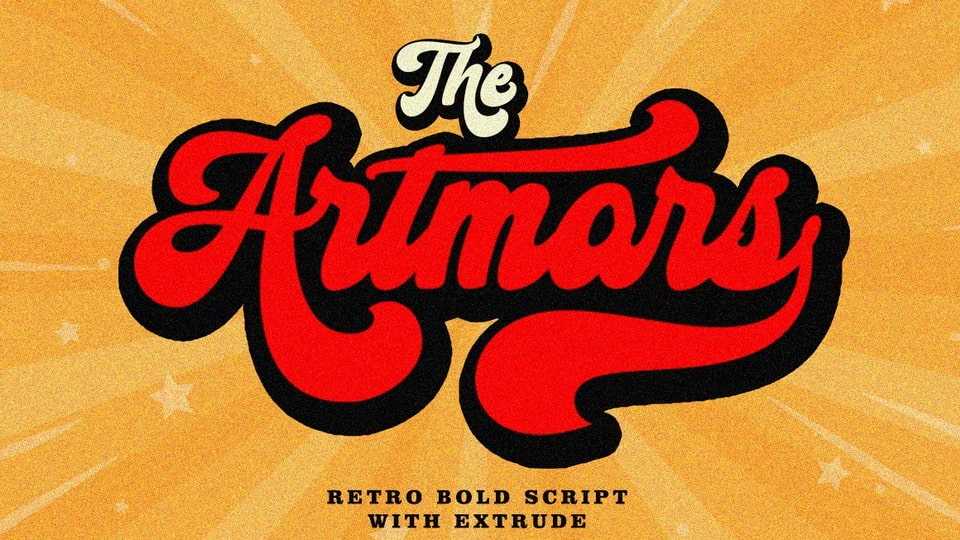
Download The Artmars Script font, a display typeface inspired by a retro signage with combination of hand lettering style. The Artmars Script is good for logotype, poster, badge, book cover, t-shirt design, handwritten quotes, product packaging, header, poster, merchandise, social media and greeting cards.
Designer: Rastype